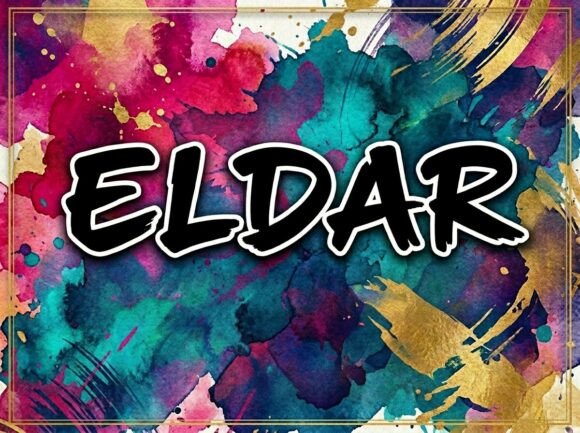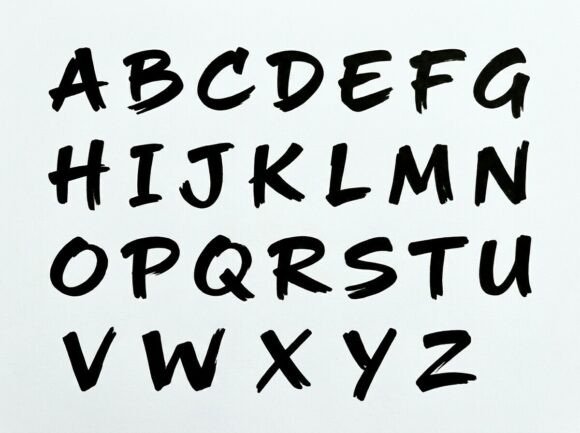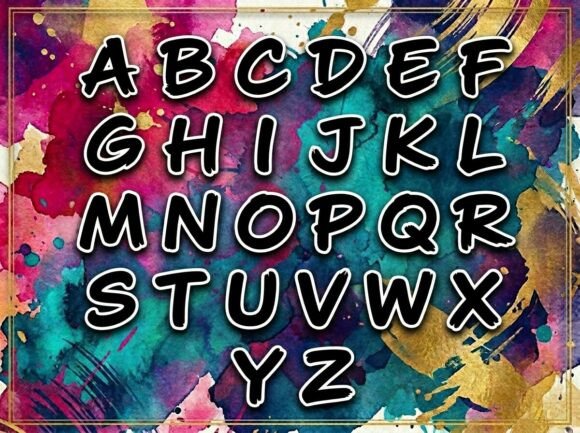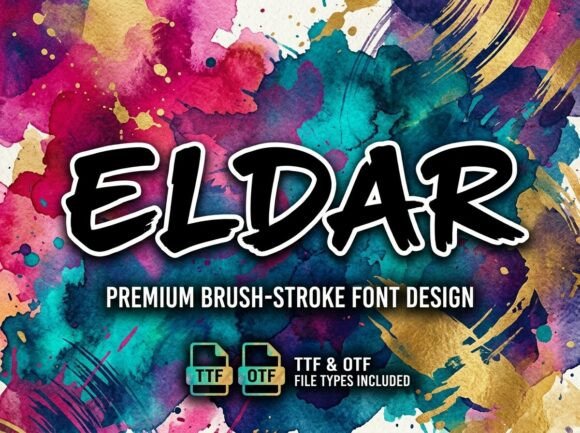
Eldar Font: A Stunning Decorative Display Font for Creative Minds
Are you tired of using the same old fonts for your designs? Look no further than the Eldar Font, a unique and artistic display font that’s sure to turn heads. This font is designed to be the center of attention, featuring bold and eye-catching elements that will elevate your creative projects to the next level.
What Makes Eldar Font So Special?
The Eldar Font is a decorative display font that’s perfect for creators who want to break away from the ordinary. Its strong visual personality and unique artistic elements make it ideal for bold headlines, artistic logos, and creative packaging. Whether you’re a designer, crafty DIY enthusiast, or entrepreneur, this font is sure to inspire your next project.
One of the standout features of the Eldar Font is its versatility. Despite its bold and decorative nature, it maintains a professional and polished finish that’s suitable for a wide range of applications. From branding and advertising to packaging and signage, this font is sure to make a lasting impression.
Important Note: All-Caps Display Typeface
Before making a purchase, it’s essential to note that the Eldar Font is an ALL-CAPS (Uppercase Only) display typeface. This means that it does not include lowercase letters, making it specifically designed for high-impact headlines, logos, and decorative initials where every letter is a work of art.
While this may seem limiting to some, the Eldar Font is carefully crafted to ensure that each uppercase letter is a stunning work of art in its own right. The font’s designer has poured their heart and soul into creating a truly unique and eye-catching font that’s sure to make a statement.
The Eldar Font is a dream come true for designers and crafters who want to add a touch of elegance and sophistication to their projects. Whether you’re creating:
- Logos and branding materials: The Eldar Font is perfect for creating eye-catching logos and branding materials that will set your business apart from the competition.
- Signage and displays: With its bold and decorative nature, the Eldar Font is ideal for creating eye-catching signage and displays that will grab attention.
- Packaging and labeling: Add a touch of elegance and sophistication to your packaging and labeling with the Eldar Font.
- Artistic and creative projects: The Eldar Font is perfect for artists, crafters, and DIY enthusiasts who want to add a unique touch to their creative projects.